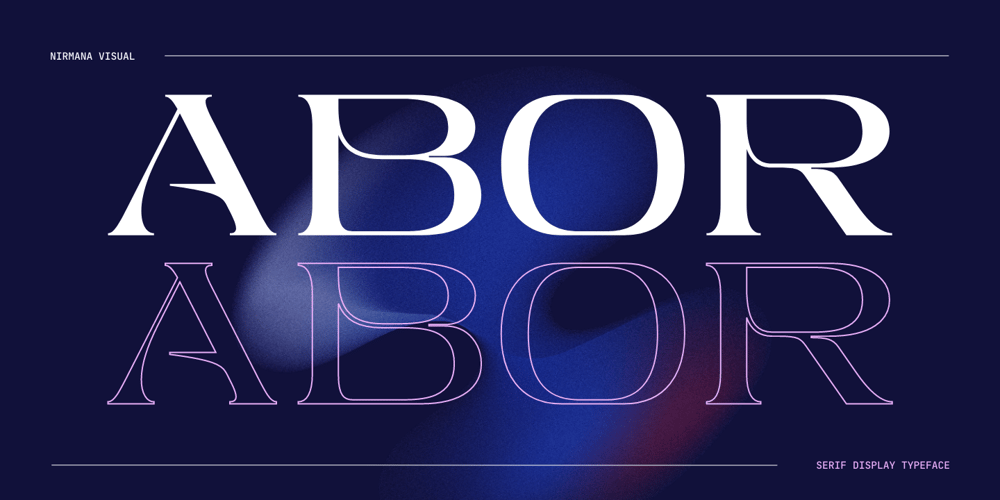
Abor Font Family was designed by Sigit Dwipa and published by Nirmana Visual. Abor contains 1 styles and family package options. Introducing our sophisticated modern serif ligatures font, crafted to add an extra touch of elegance and sophistication to your designs. With its intricate ligatures and unique design, this font is perfect for creating eye-catching headlines, logos, and branding materials that demand attention.Our modern serif ligatures font features a harmonious balance of clean lines and curved shapes, creating a timeless and sophisticated aesthetic that is sure to elevate your designs. The beautifully crafted ligatures add an extra level of refinement, seamlessly connecting letters to create a stunning visual display.